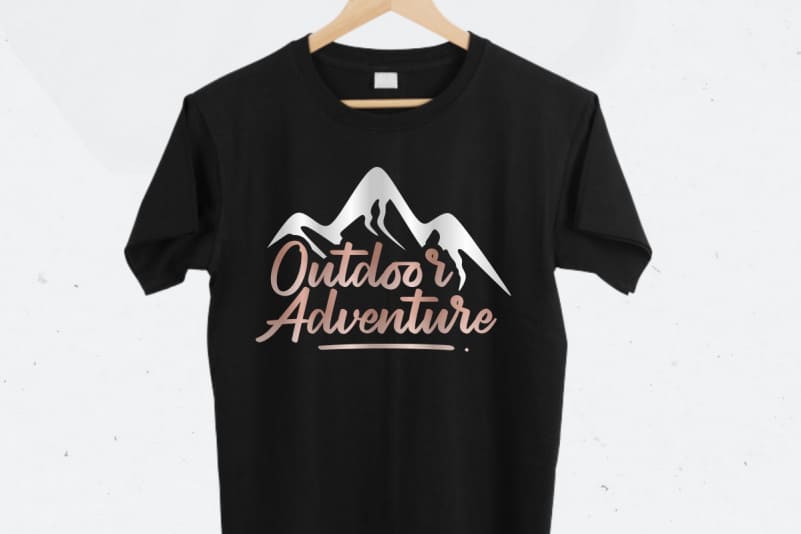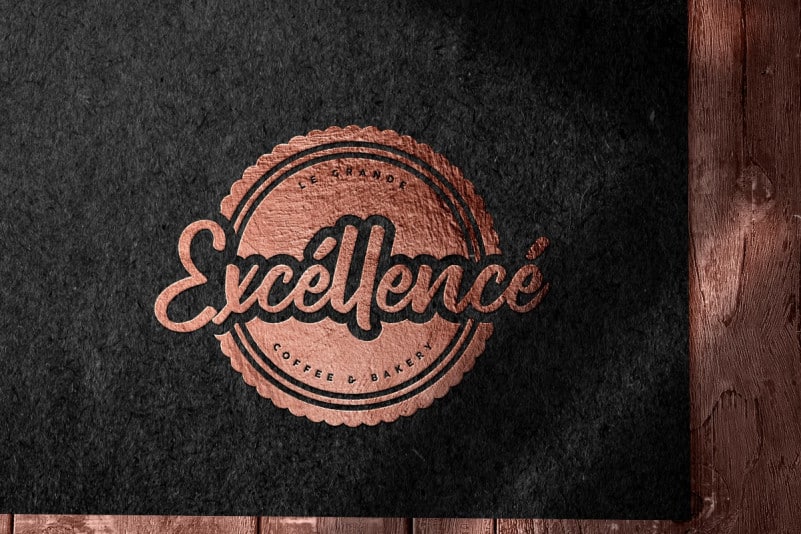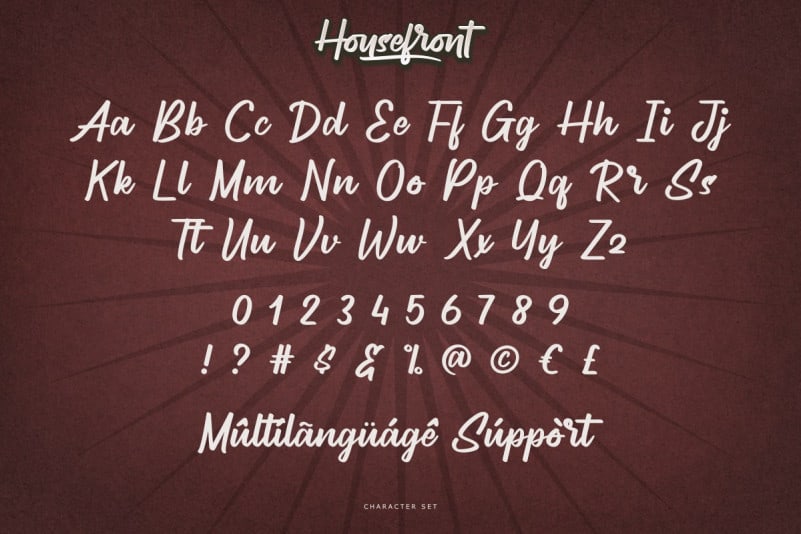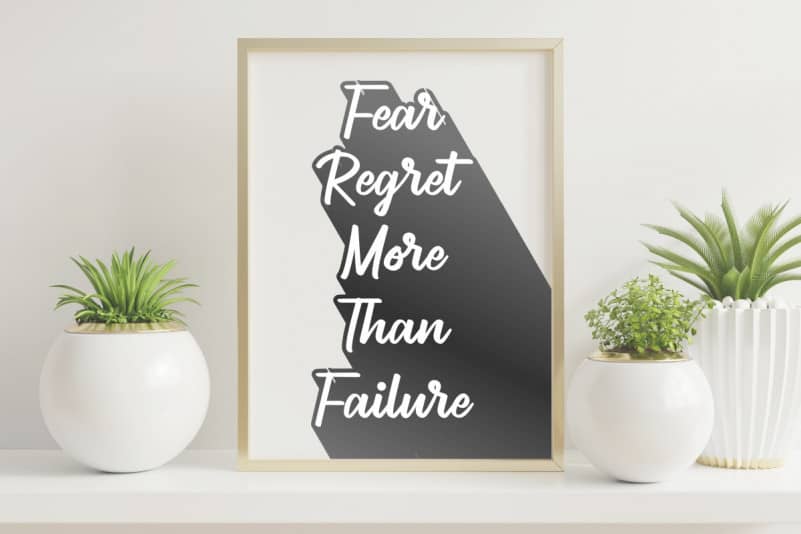
Housefront Script Font
Housefront Script Font is a classic calligraphy font. It has unique looks that are beautiful, modern, elegant, luxury, lettering and sophisticated brush font.